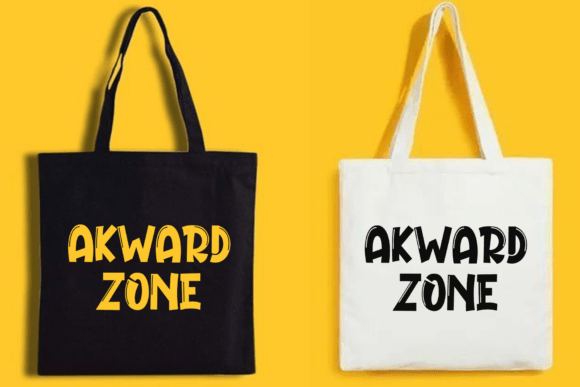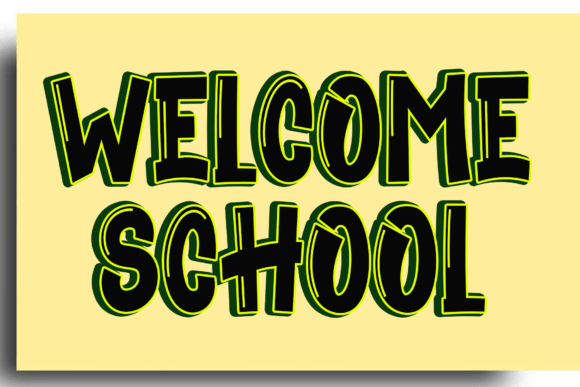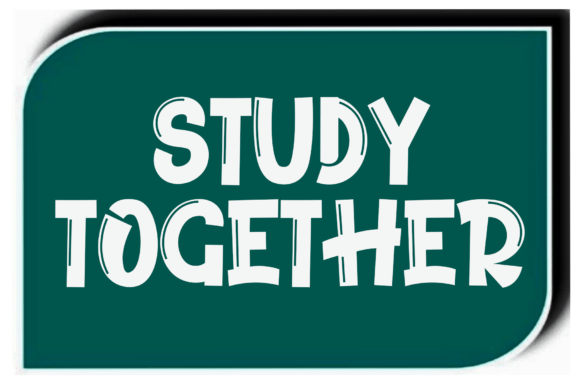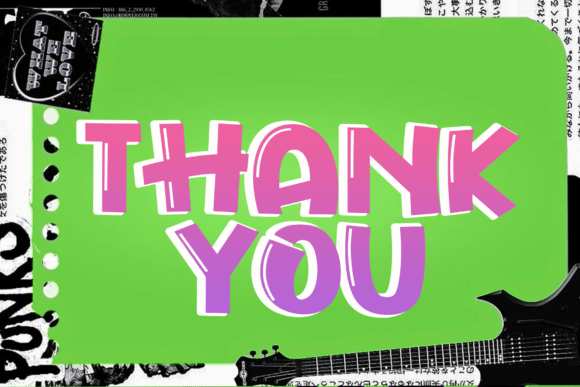
Introduction to Eagles Font
Eagles is a cool, simple, and playful handwritten font.
Incredibly versatile, this font fits a wide pool of designs, elevating them to the highest levels Add this font to your favorite creative ideas, and notice how it makes them come alive.
Key Features of Eagles Font
Why Choose Eagles Font?
Eagles Font offers exceptional quality and versatility, making it a valuable addition to your design toolkit. Whether you’re creating for personal projects or commercial use, Eagles Font delivers professional results.